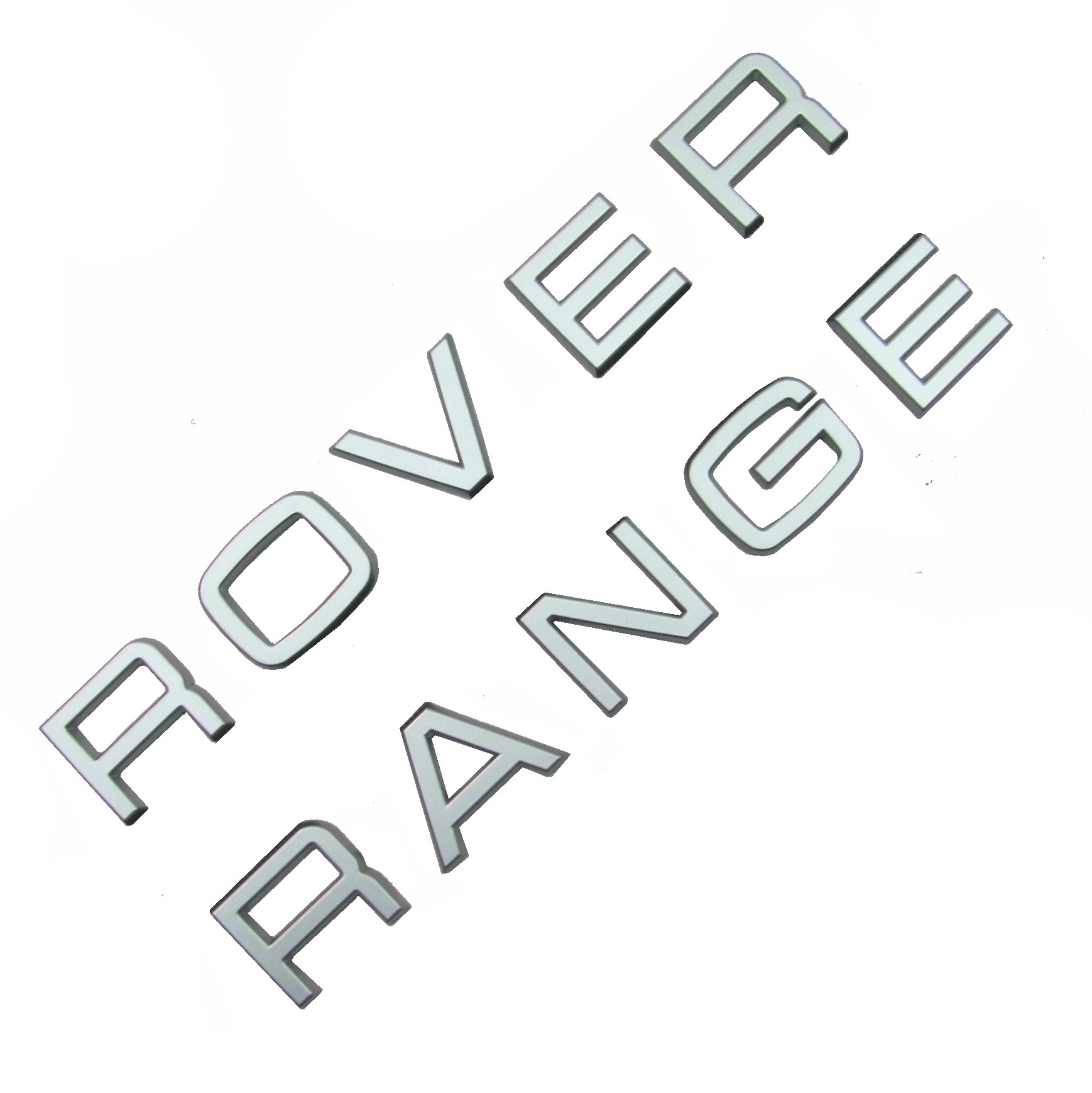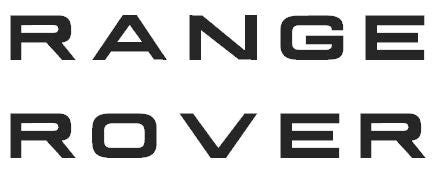
Range Rover Font Style . Web the closest font you can get for the land rover logo is futura bold obliqued font. Web the land rover logo is a green oval with beige letters on it that reads “land rover”.
Each model gets a customized swagger under the overarching land rover identity. Web the land rover logo is a green oval with beige letters on it that reads “land rover”. Web download land rover font font free on fontbolt.
Web the closest font we can find for land rover logo is itc symbol black italic, which is a glyphic serif font designed by aldo novarese and published by itc. It is said that the logo was inspired by a pilchard tin, which left a. Try the best land rover font generator & convert your text into images with. Each model gets a customized swagger under the overarching land rover identity.
Range Rover Font Style - It is said that the logo was inspired by a pilchard tin, which left a. Web land rover is a british automaker founded in 1978. Web the closest font we can find for land rover logo is itc symbol black italic, which is a glyphic serif font designed by aldo novarese and published by itc. Web download land rover font.
Range Rover Font Style - Web download land rover font font free on fontbolt. Click here to buy futura bold obliqued font. Web land rover is a british automaker founded in 1978. Web the closest font we can find for land rover logo is itc symbol black italic, which is a glyphic serif font designed by aldo novarese and published by itc. It is said.
Range Rover Font Style - Web the closest font you can get for the land rover logo is futura bold obliqued font. The stern font echoes the brand’s command over uncharted territories. It is said that the logo was inspired by a pilchard tin, which left a. Web land rover is a british automaker founded in 1978. Web the closest font we can find for.
Range Rover Font Style - Web download land rover font font free on fontbolt. Each model gets a customized swagger under the overarching land rover identity. It is said that the logo was inspired by a pilchard tin, which left a. Click here to buy futura bold obliqued font. The stern font echoes the brand’s command over uncharted territories.
Range Rover Font Style - Try the best land rover font generator & convert your text into images with. Click here to buy futura bold obliqued font. It is said that the logo was inspired by a pilchard tin, which left a. Web the closest font we can find for land rover logo is itc symbol black italic, which is a glyphic serif font designed.
Range Rover Font Style - Web the closest font you can get for the land rover logo is futura bold obliqued font. Each model gets a customized swagger under the overarching land rover identity. Click here to buy futura bold obliqued font. Web the closest font we can find for land rover logo is itc symbol black italic, which is a glyphic serif font designed.
Range Rover Font Style - Web the closest font we can find for land rover logo is itc symbol black italic, which is a glyphic serif font designed by aldo novarese and published by itc. Try the best land rover font generator & convert your text into images with. Web the land rover logo is a green oval with beige letters on it that reads.
Range Rover Font Style - Web download land rover font font free on fontbolt. Try the best land rover font generator & convert your text into images with. Click here to buy futura bold obliqued font. The stern font echoes the brand’s command over uncharted territories. Each model gets a customized swagger under the overarching land rover identity.
Range Rover Font Style - Web the closest font you can get for the land rover logo is futura bold obliqued font. It is said that the logo was inspired by a pilchard tin, which left a. Web the land rover logo is a green oval with beige letters on it that reads “land rover”. Web the closest font we can find for land rover.
Range Rover Font Style - Web the closest font we can find for land rover logo is itc symbol black italic, which is a glyphic serif font designed by aldo novarese and published by itc. Web the land rover logo is a green oval with beige letters on it that reads “land rover”. The stern font echoes the brand’s command over uncharted territories. Each model.
Range Rover Font Style - It is said that the logo was inspired by a pilchard tin, which left a. Web download land rover font font free on fontbolt. Click here to buy futura bold obliqued font. Web the closest font you can get for the land rover logo is futura bold obliqued font. Web the land rover logo is a green oval with beige.
Range Rover Font Style - Try the best land rover font generator & convert your text into images with. Web the land rover logo is a green oval with beige letters on it that reads “land rover”. Web land rover is a british automaker founded in 1978. Click here to buy futura bold obliqued font. Web the closest font we can find for land rover.